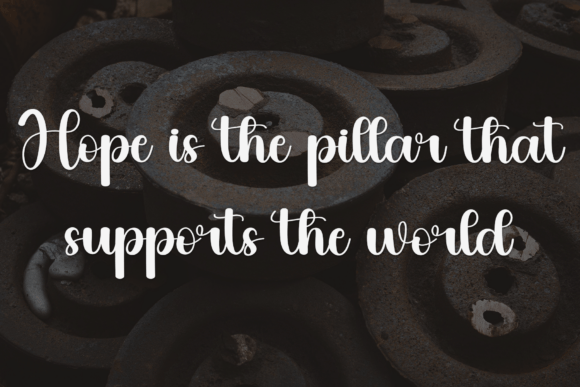
Candy Crush Font: Elevate Your Designs with a Sweet and Luxurious Touch
Are you a designer or crafter looking for a unique and stunning font to add a touch of luxury to your projects? Look no further than the Candy Crush Font! This beautiful and light handwritten font is sure to make a lasting impression and elevate your designs to the next level.
What Makes Candy Crush Font So Special?
The Candy Crush Font is a one-of-a-kind typeface that boasts a unique feel and a stunning impact. Its light and airy texture makes it perfect for a wide range of design projects, from elegant branding and packaging to beautiful stationery and crafts. Whether you’re looking to create a sophisticated and luxurious look or a playful and whimsical one, this font is sure to deliver.
PUA Encoding for Easy Access to Glyphs and Ligatures
One of the standout features of the Candy Crush Font is its PUA (Private Use Area) encoding. This means that you can access all of the amazing glyphs and ligatures with ease, giving you even more creative possibilities. With PUA encoding, you can unlock a world of typographic possibilities and take your designs to new heights.
The Candy Crush Font is a versatile typeface that is perfect for designers and crafters alike. Whether you’re working on a commercial project or a personal craft, this font is sure to add a touch of luxury and sophistication. Its unique feel and stunning impact make it perfect for a wide range of applications, including:
- Branding and packaging
- Stationery and cards
- Crafts and DIY projects
- Web design and digital marketing
Why Choose the Candy Crush Font?
With so many fonts on the market, why choose the Candy Crush Font? Here are just a few reasons why this font stands out from the rest:
- Unique feel: The Candy Crush Font has a one-of-a-kind feel that is sure to make your designs stand out.
- Luxurious look: This font adds a touch of luxury and sophistication to any design project.
- PUA encoding: With PUA encoding, you can access all of the amazing glyphs and ligatures with ease.
- Versatility: The Candy Crush Font is perfect for a wide range of design projects and applications.
Tips for Using the Candy Crush Font
To get the most out of the Candy Crush Font, here are a few tips to keep in mind:
- Use it sparingly: Because of its luxurious and sophisticated feel, it’s best to use the Candy Crush Font sparingly to make a big impact.
- Experiment with glyphs and ligatures: With PUA encoding, you can access a wide range of glyphs and ligatures. Experiment with different combinations to find the perfect look for your design.
- Pair it with other fonts: The Candy Crush Font pairs well with a wide range of other fonts. Experiment with different pairings to find the perfect combination for your design.
The Candy Crush Font is a beautiful and light handwritten font that is sure to elevate your designs to the next level. With its unique feel, luxurious look, and PUA encoding, this font is perfect for designers and crafters alike. Whether you’re working on a commercial project or a personal craft, the Candy Crush Font is sure to add a touch of luxury and sophistication. So why wait? Download the Candy Crush Font today and take your designs to new heights!